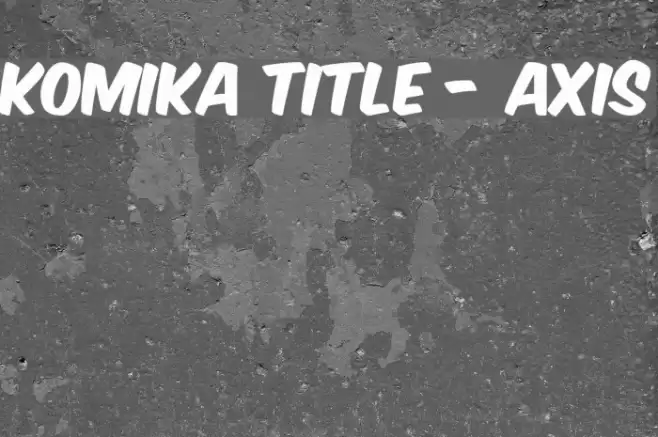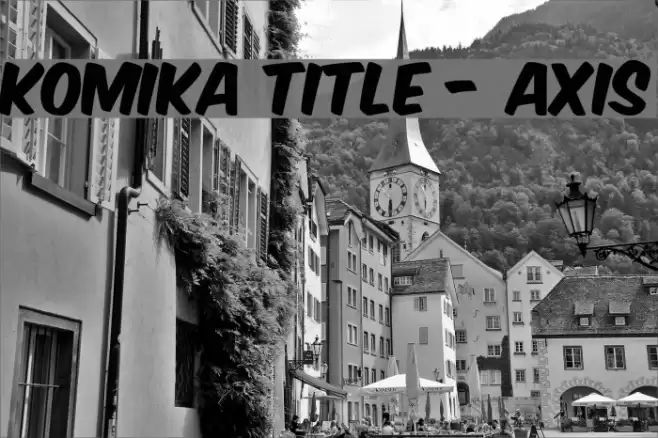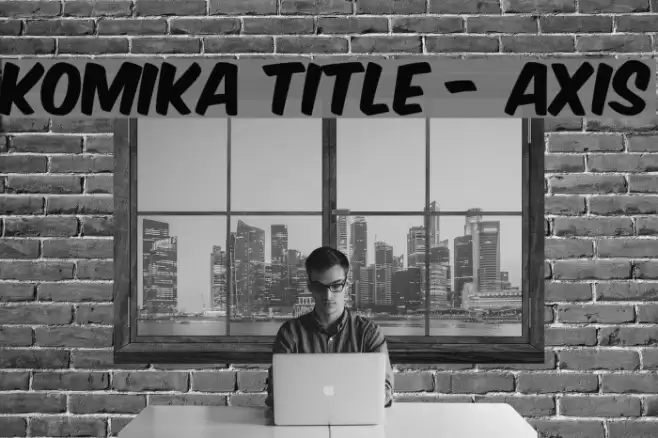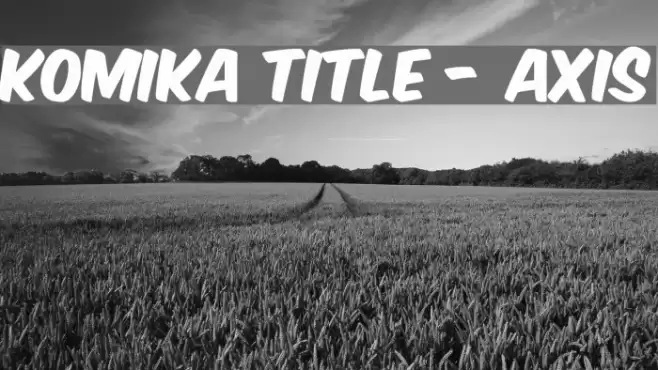
Komika Title - Axis Font
Komika Title - Axis Description
This font exudes a playful and energetic vibe with its bold and slightly slanted characters. The letters are thick and rounded, giving them a cartoonish and friendly appearance. The uppercase and lowercase letters maintain a consistent style, with a slight tilt that adds to the dynamic feel. The numbers and special characters follow the same design principles, ensuring a cohesive look across all text elements. The overall style is informal and fun, making it ideal for projects that require a lively and approachable aesthetic.
A bold, playful font with a cartoonish and energetic style from Comic fonts.
- Proposed Projects: Ideal for comic books, children's books, playful branding, and posters.
- Overall Style: Playful, Energetic, Cartoonish